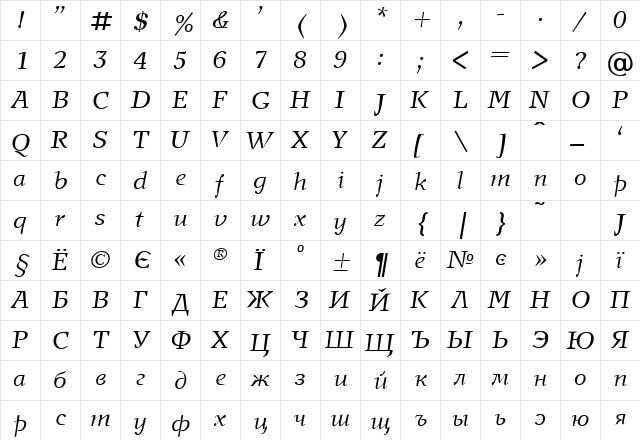
NewJournalC Italic
Design Context for NewJournalC Typeface
NewJournalC is a composed and adaptable typeface that performs quietly and consistently across a wide range of design contexts. The slanted form adds forward momentum and visual energy.